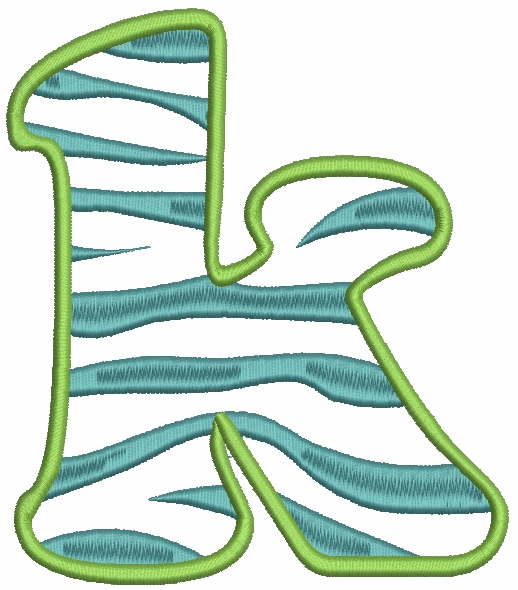
No 363 Lowercase Zebra Filled Font Machine Embroidery Designs 6 inch high
This set contains 26 designs in 2 colors - zebra stripes & outline [no white background stitches]:
• 26 Lowercase Letters – all 6" high
• NOT intended to be used to spell names [see picture below for more details]
Designed for 1 Letter Monograms